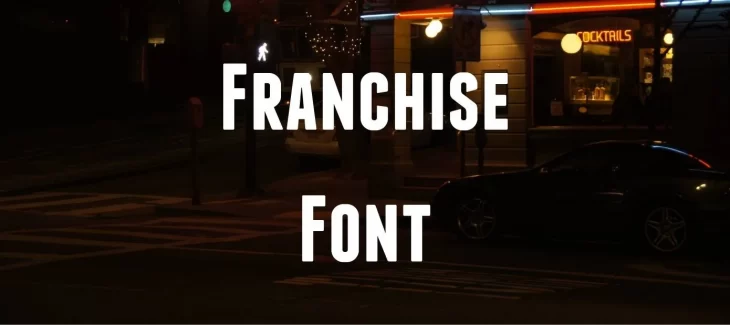
Franchise Font is a new and unique font that is perfect for any business or individual looking to add a touch of personality to their branding. This font is also perfect for creating logos, flyers, and any other marketing materials.
This Font is a Display font that includes both upper and lowercase letters, as well as numbers and special characters. This font is sure to make your branding stand out from the rest!
This typeface texture has been created by designer Måns Grebäck. The design was influenced by classic grotesque typefaces. Franchise Font includes 6 different weights, from Light to Black, each with its own unique personality.
Who Used Franchise Font?
This Font is perfect for any business or individual looking to add a touch of personality to their branding. This font is also perfect for creating logos, flyers, and any other marketing materials. This font is perfect for both web and print design.
Many designers utilize the Franchise typeface for their branding projects because it is a versatile font that can be used in many different ways.
Because of its keen features, this font is good for product packaging and branding projects. The franchise typeface will add a touch of class and sophistication to any project.
Franchise Font Family Appearance
| Name | Franchise Font |
| Designer | Måns Grebäck |
| Style | Display |
Is Franchise a Script font?
No, This is not a script font. It is a Display font that includes both upper and lowercase letters, as well as numbers.
Is Franchise texture good for body text?
Yes, the Franchise style is a great choice for body text. This font is easy to read and has a clean, modern look.
Is Franchise typeface good for titles?
Yes, This Font is a great choice for titles. This font is bold and eye-catching, making it perfect for headlines.